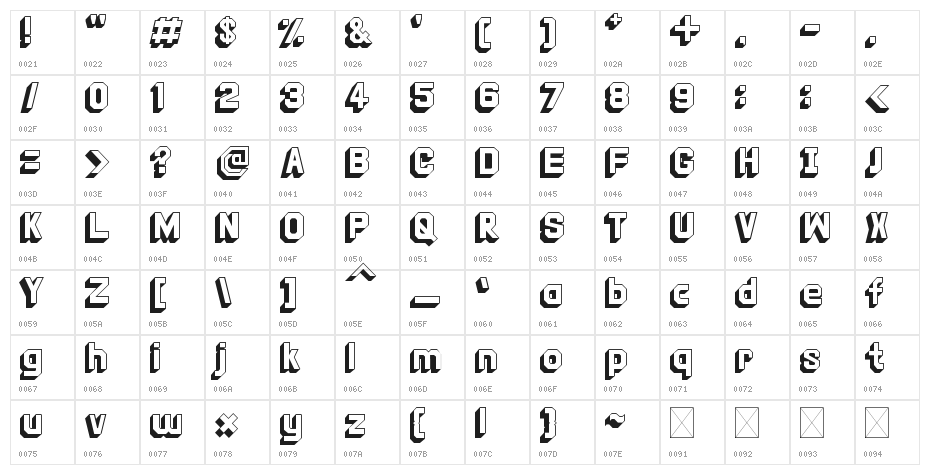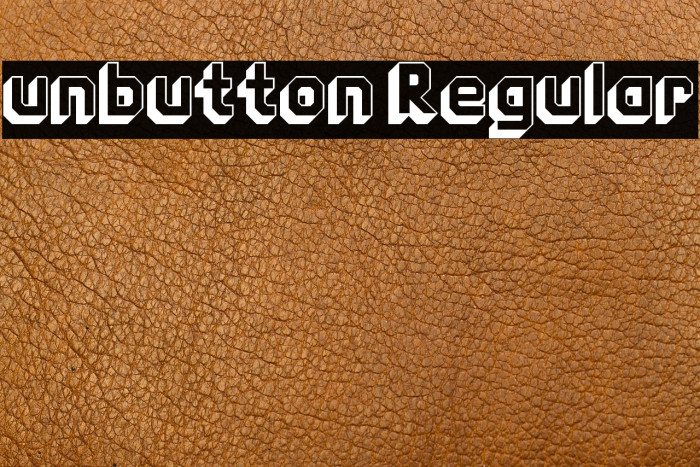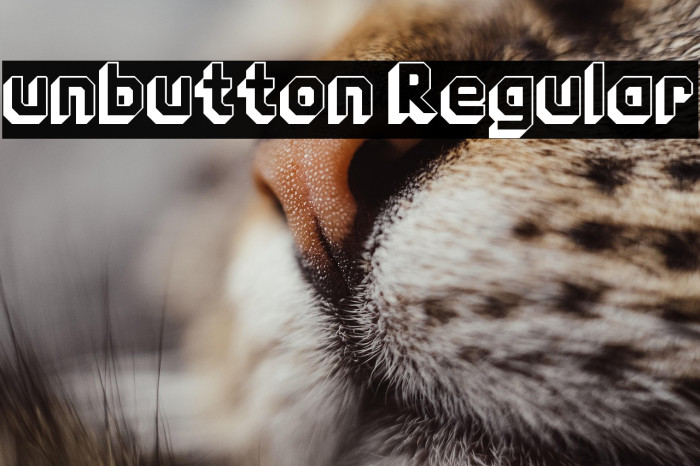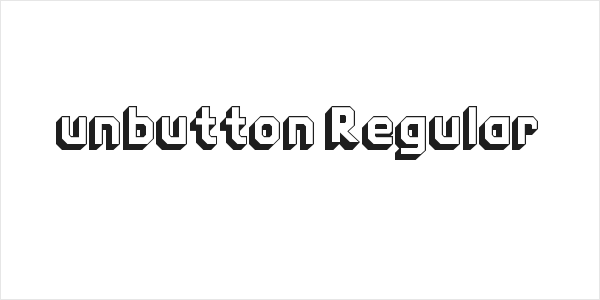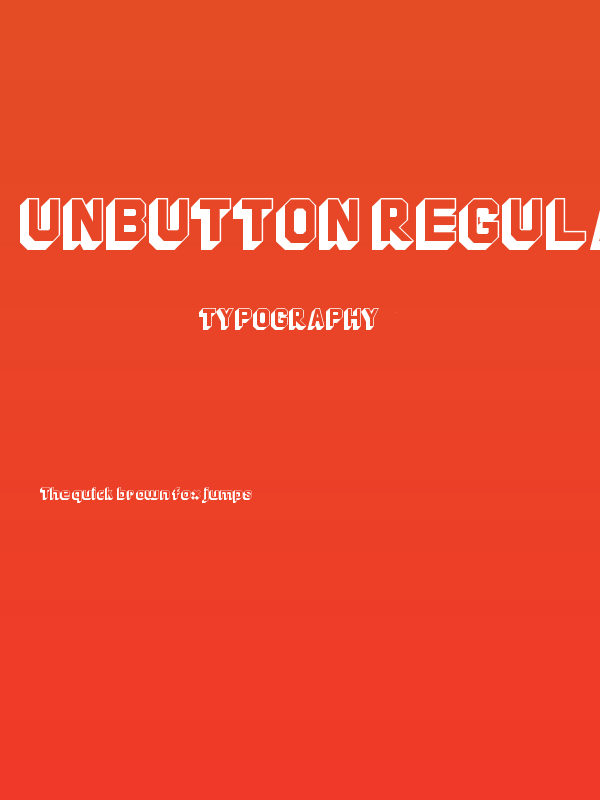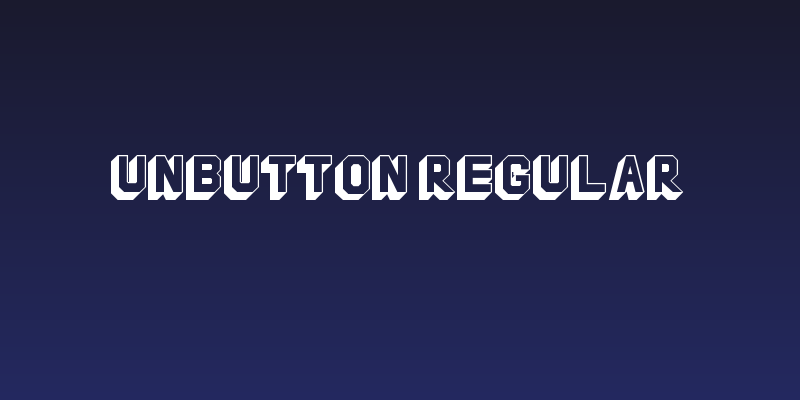
unbutton Regular Font
unbutton Regular Description
This font features a bold, three-dimensional style with a strong shadow effect, giving it a striking and impactful appearance. The characters are blocky and geometric, with sharp angles and clean lines that enhance its modern and dynamic look. The uppercase and lowercase letters maintain a consistent style, while the numerals and special characters complement the overall design. The font's bold presence makes it ideal for attention-grabbing headlines and display purposes.